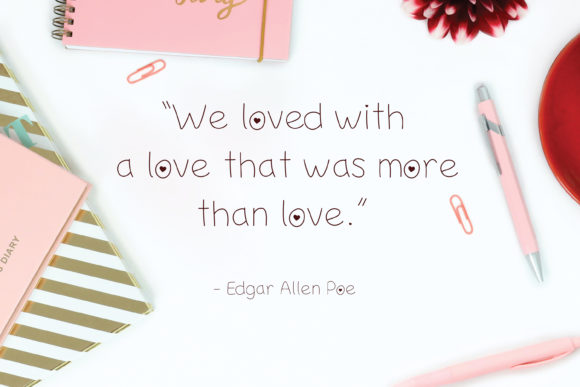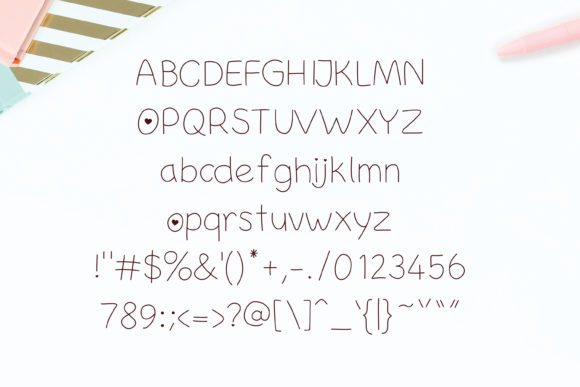
Introduction to Oijo Font
Remember that moment when you stumbled upon the perfect font for your creative project? The one that made your design sparkle and shine? For designers, finding the right font can be a game-changer. It’s like stumbling upon a hidden treasure that elevates your entire design and gives it that extra oomph.
One such treasure is the Oijo Font, a charming handwritten font that’s as whimsical as it is relaxed. With its high-quality design and transparent background, this font is perfect for logos, branding, social media, and crafty DIY projects. As a valuable design resource, Oijo Font is a must-have for any designer looking to add a touch of personality to their work.
Key Features of Oijo Font
- High-quality, professional font designed for creative projects
- Comes with a transparent background, making it perfect for use on various backgrounds
- Includes a range of weights and styles, allowing for flexibility and customization in your design
- Designed with a high resolution, making it suitable for use in print and digital applications
- Perfect for designers and artists looking for a unique and creative font to elevate their work
Honest Review: Oijo Font
As a designer, I’m always on the lookout for high-quality design resources that can elevate my creative projects. The Oijo Font is one such find that I’d like to share with you.
What works well: ✨ The Oijo Font is free to download and comes with a transparent background, making it super easy to use in various design contexts. The font itself is clean, modern, and versatile, suitable for a wide range of creative projects. It’s also well-suited for web design, as it’s optimized for digital use.
What doesn’t work well: ⚠️ One limitation I’ve noticed is that the font family is relatively small, with only a few styles to choose from. While this might not be a major issue for most designers, it could be a problem if you’re working on a complex project that requires multiple font styles.
Overall, I’m impressed with the Oijo Font’s quality and usability. It’s definitely a great addition to any designer’s toolkit, especially for free. I’d recommend it to anyone looking for a clean, modern font for their next creative project.
- Modern and clean aesthetic
- Optimized for web design
Oijo Font
Tips for Getting the Most Out of Oijo Font
Here are some tips for getting the most out of the Oijo Font:
- Use the font with a transparent background to create a clean and modern look.
- Experiment with different font sizes and styles to add depth and interest to your designs.
- Combine the font with other design elements, such as images and graphics, to create a visually appealing design.
The Oijo Font is suitable for a wide range of creative projects, including:
- Posters and signs